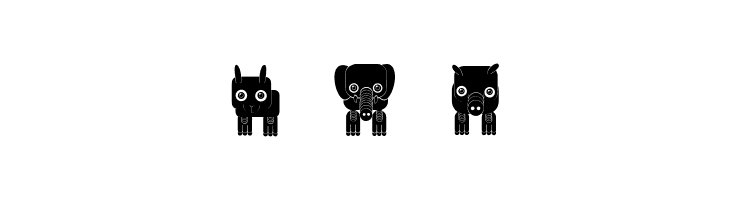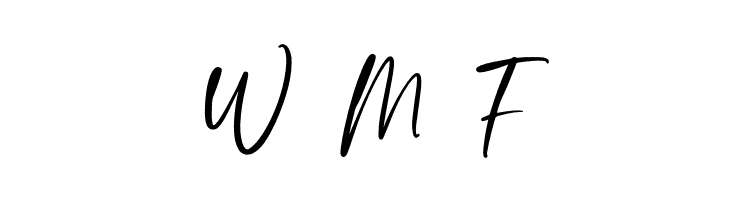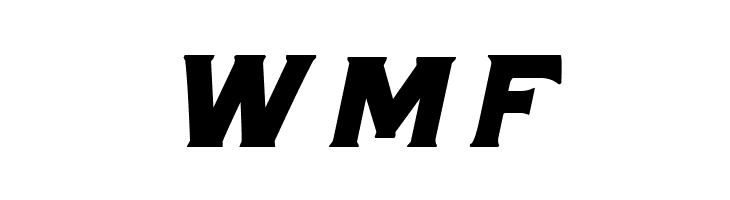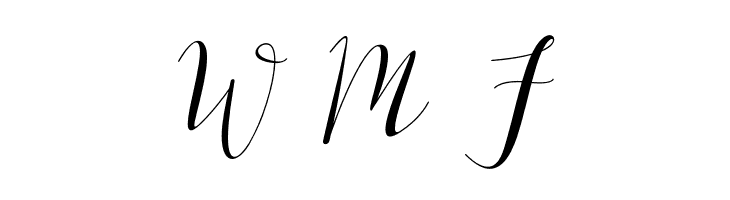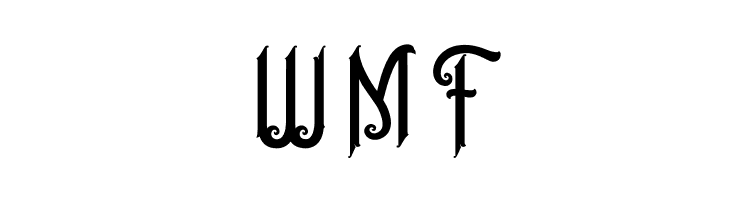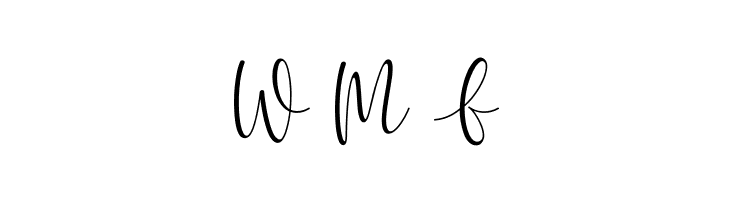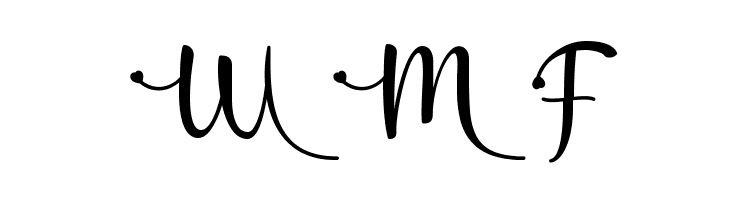
A playful, bold font with rounded edges and a hand-drawn aesthetic.
A flowing, cursive font with elegant, interconnected strokes.
An elegant script font with graceful, flowing lines and delicate curves.
An ornate and decorative font with Gothic influences, featuring elaborate letterforms.
A playful and whimsical script font with elegant curves and decorative swashes.
A playful script font with decorative swashes and a handwritten feel.
A bold, energetic script font with a hand-painted, dynamic style.
A bold, geometric font with blocky, angular characters for modern designs.
A bold, dynamic italic font with sharp angles and strong presence.
A playful, decorative font with letters as cartoon-like creatures.
A bold, decorative font with a three-dimensional, patterned design.
A bold, modern display font with strong, block-like characters.
A bold, italic display font with dynamic and energetic styling.
A bold, decorative font with a cable-like, 3D design ideal for tech-inspired projects.
A bold, decorative font with a cable-like, tech-inspired design.
A bold, cable-inspired decorative font with a modern industrial feel.
A bold, rounded font with smooth curves and consistent stroke width.
A bold, italicized font with a modern, compact style and medium contrast.
A bold, italic font with rounded characters and a modern, dynamic style.
A bold, rounded font with smooth curves and uniform stroke width, offering a modern and approachable style.
A playful handwritten font with a casual, dynamic style.
A whimsical, decorative font with jagged, irregular strokes and a mystical appearance.
A modern, playful font with rounded, monoline strokes and a handwritten touch.
A playful, handwritten-style font with rounded, bold characters.
A playful, handwritten font with bold, irregular strokes and a casual style.
A bold, geometric font with high contrast and a slightly condensed style.
A dynamic and expressive handwritten font with fluid, cursive strokes.
An elegant, flowing script font with intricate loops and modern flair.
A lively and flowing script font with elegant curves and smooth connections.
A graceful script font with flowing, connected letters and elegant flourishes.
A playful, hand-drawn font with tall, narrow characters and a whimsical style.
A bold, flowing script font with a handwritten style.
A lively and elegant script font with fluid strokes and playful swashes.
A bold, blocky font with a 3D shadow effect and square framing.